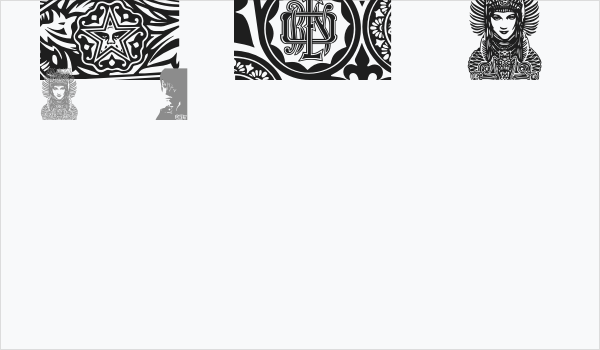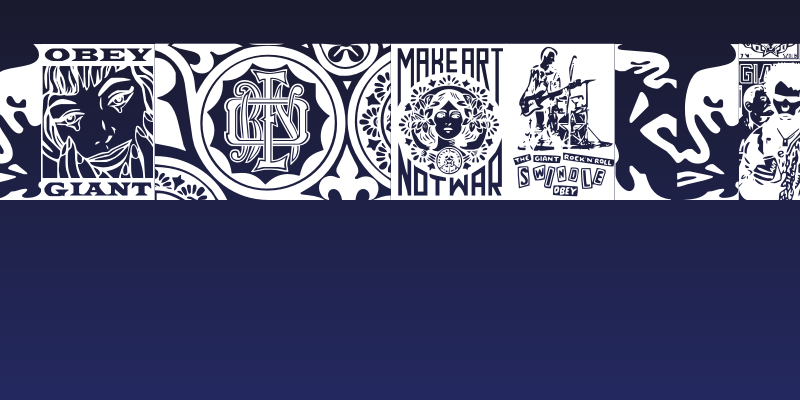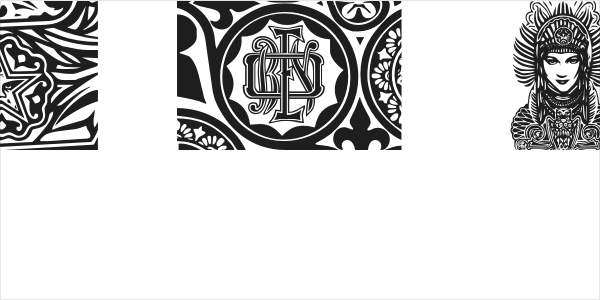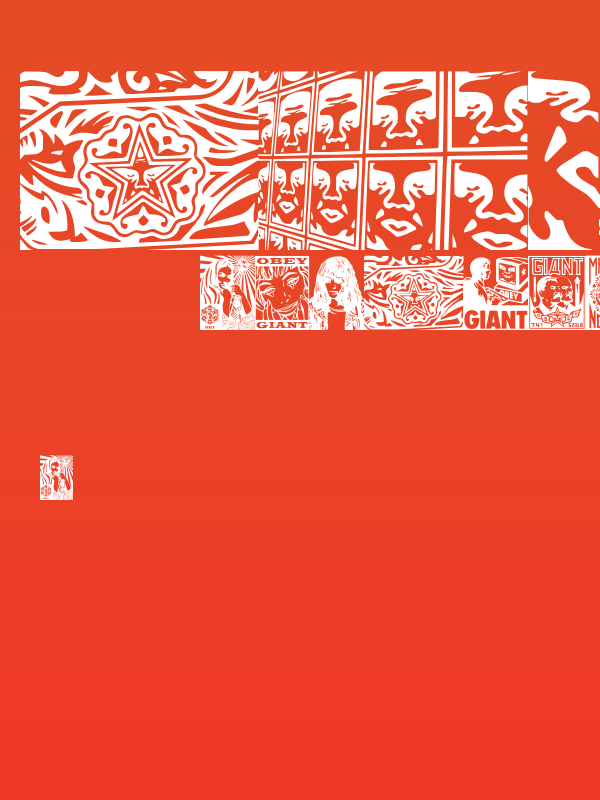
ObeyFavesCaps Font
ObeyFavesCaps Description
A highly decorative and illustrative set of glyphs, each character is represented by a unique, detailed artwork or graphic, often with bold lines and high contrast, reminiscent of street art or propaganda poster styles.
| Overall Style | Decorative, Urban, Artistic |
| Use Case | Logos, Headlines, Posters, Artistic projects |
| Proposed Projects | Posters, album covers, street art-inspired designs, branding for creative projects, event promotions. |